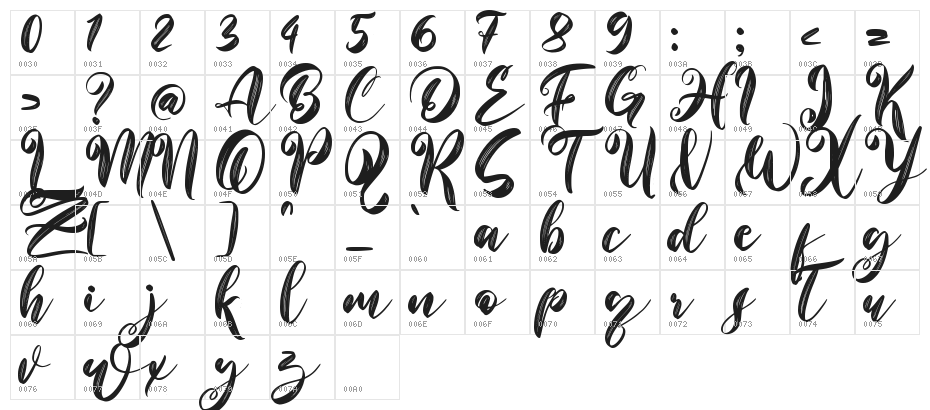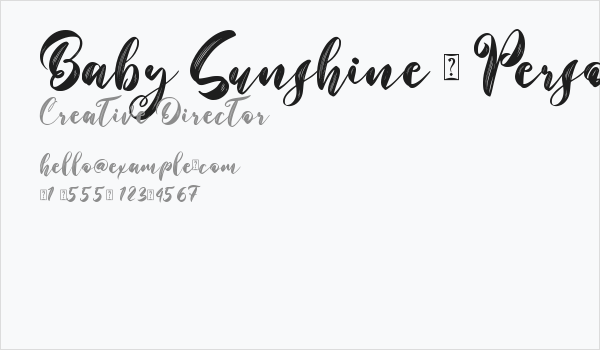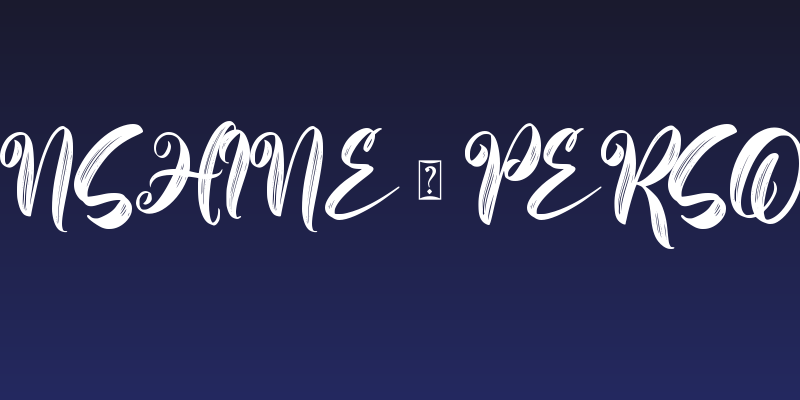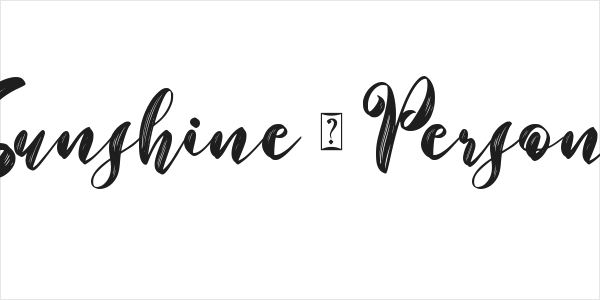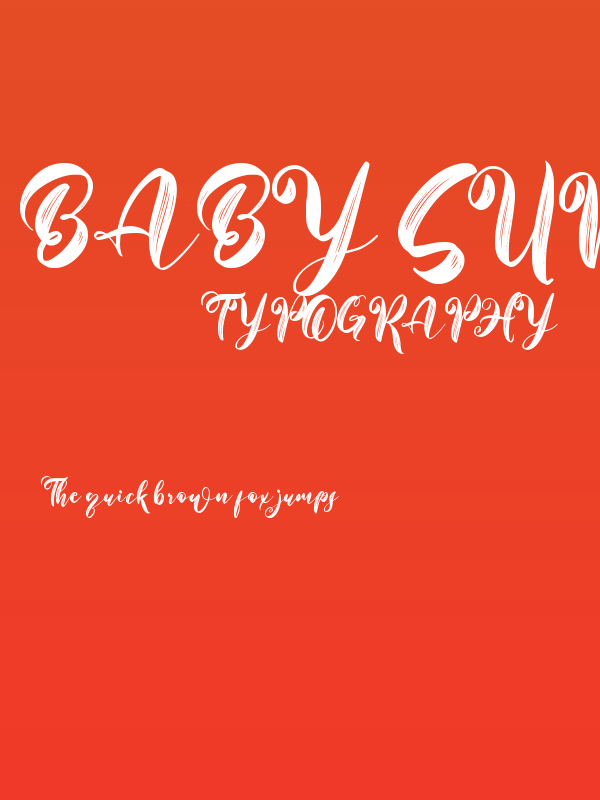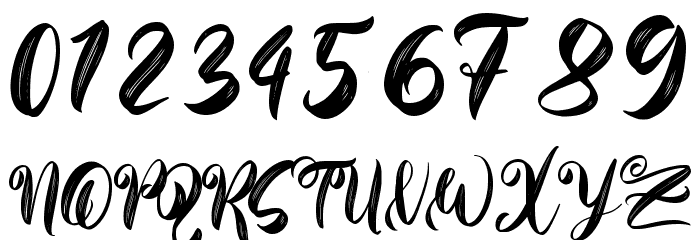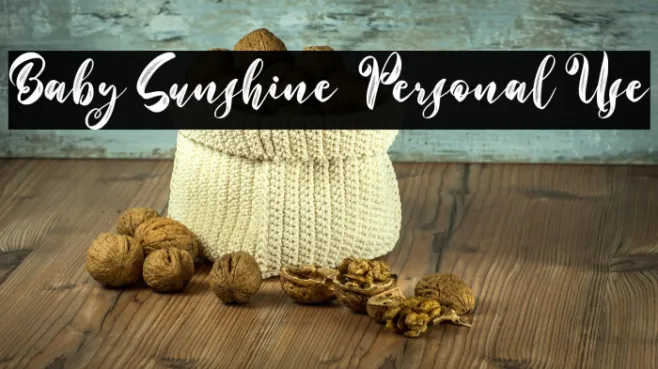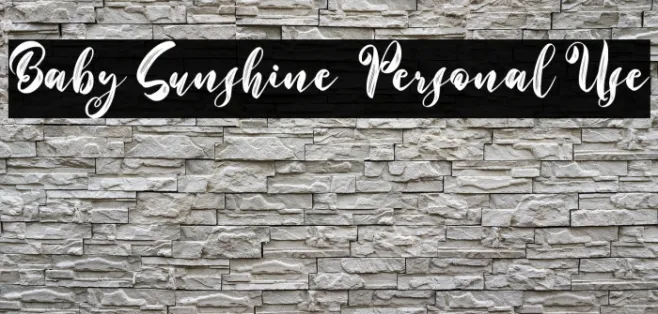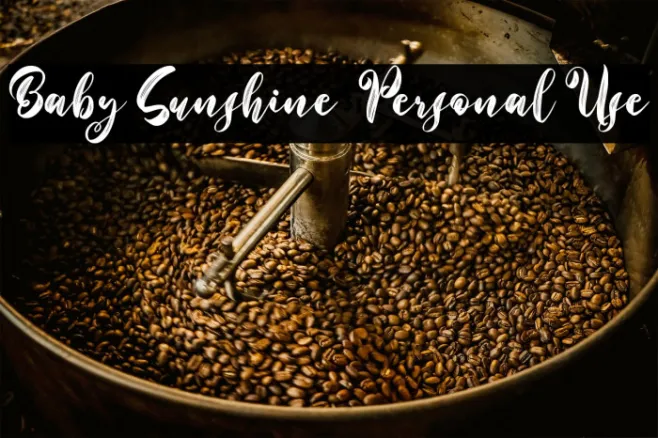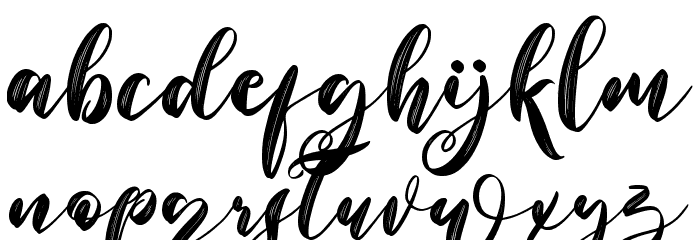
Baby Sunshine - Personal Use Font
Baby Sunshine - Personal Use Description
This font features a lively and expressive script style, characterized by its bold and flowing strokes. The letters are interconnected with a natural, handwritten flair, giving it a personal and artistic touch. The uppercase letters are elegantly designed with sweeping curves, while the lowercase letters maintain a consistent rhythm and fluidity. The numerals are equally dynamic, complementing the overall aesthetic. This font exudes a sense of creativity and warmth, making it ideal for projects that require a personal or artistic feel.